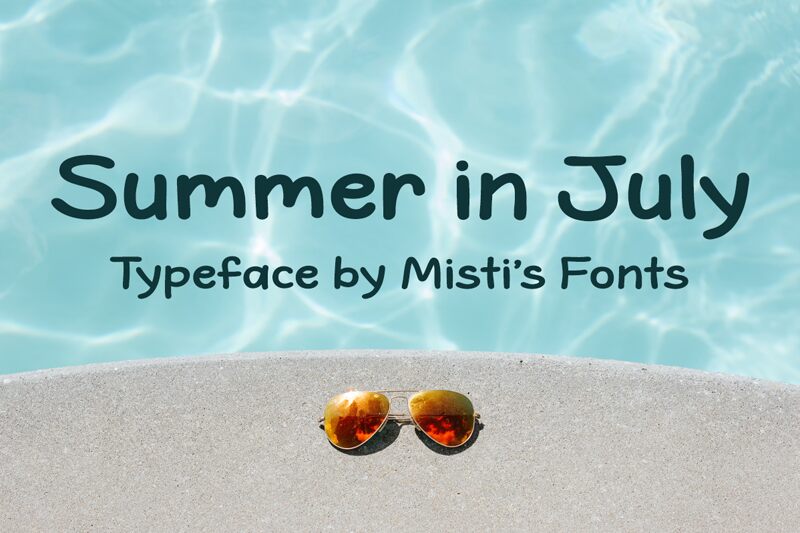
Summer in July font is a free handwritten font designed by Misti's Fonts with an inviting and cheerful spirit. Its playful curves and relaxed demeanor are perfect for designs that require a personal and approachable touch. The font beautifully captures the essence of warm summer days, making it ideal for projects looking to evoke a sense of whimsy and warmth.
Whether you’re working on birthday cards, invitations, branding, or social media graphics, this font will add an informal and friendly touch to your work. It’s also great for book covers, apparel, website headers, posters, or product packaging.
Summer in July is a clean, simple handwritten font that embodies the carefree spirit of sunny days. This versatile free font is perfect for quotes, logos, invitations, and more, adding a warm, personal touch to any project. Light, breezy, and effortlessly charming, Summer in July elevates your designs with its unique style.